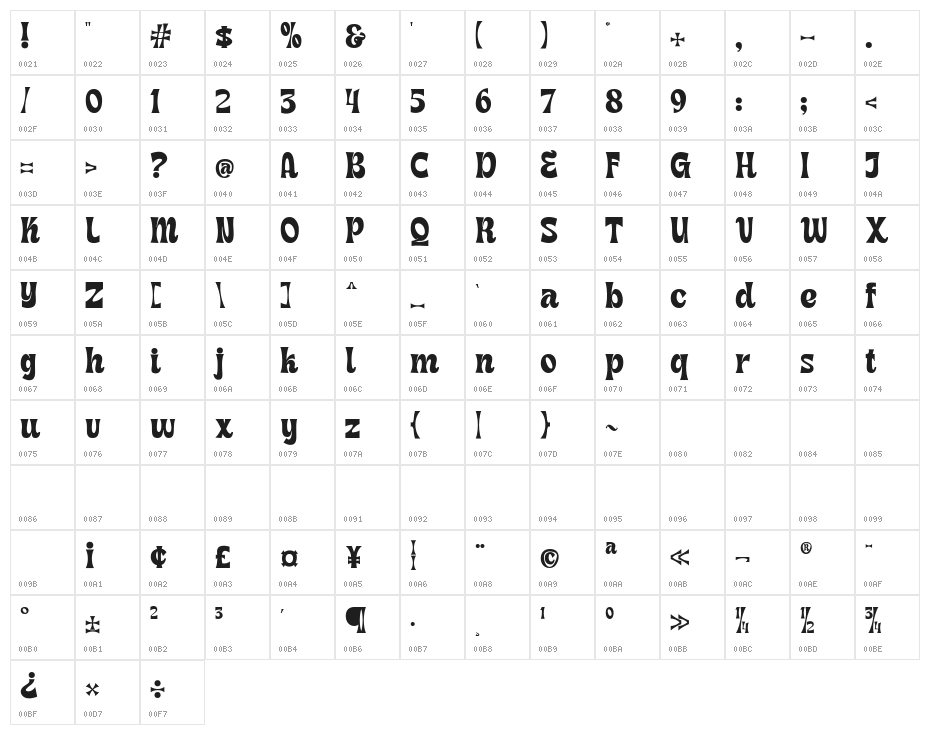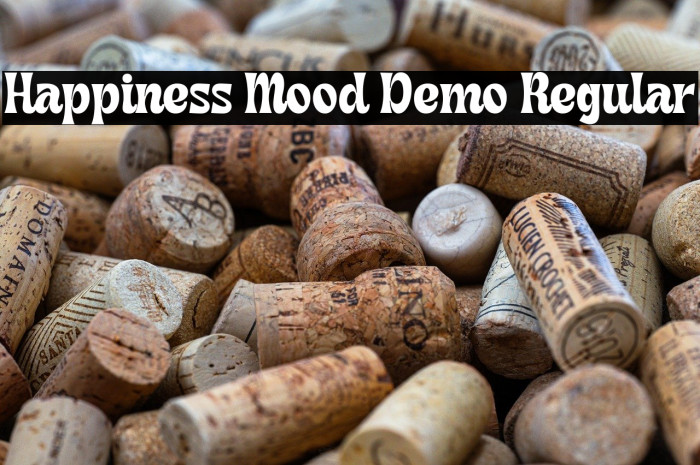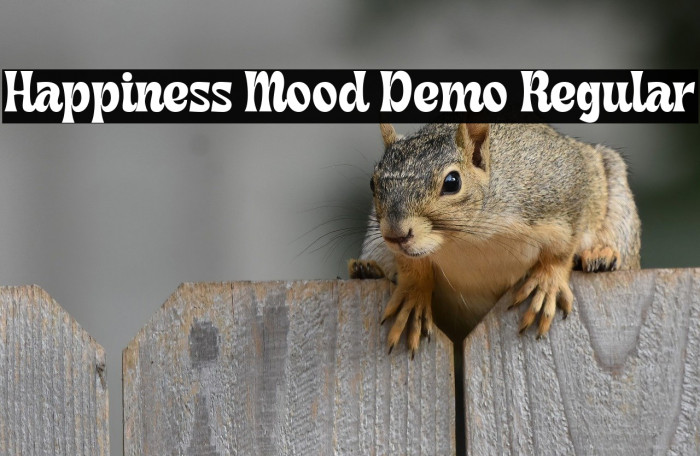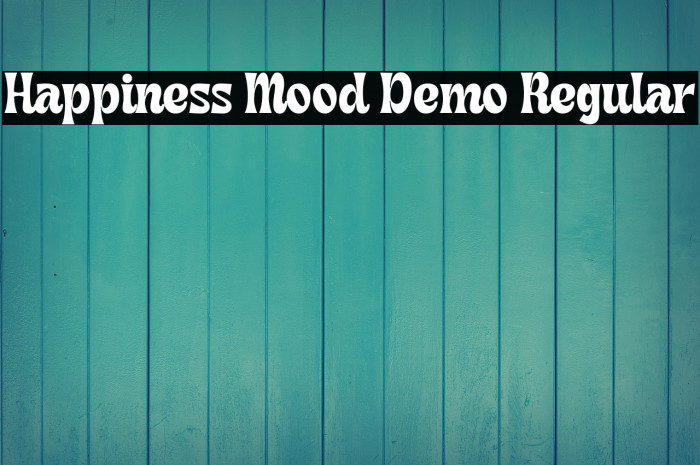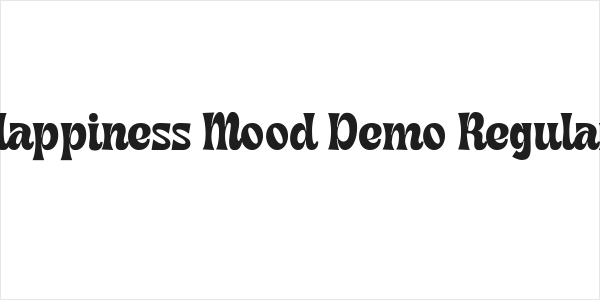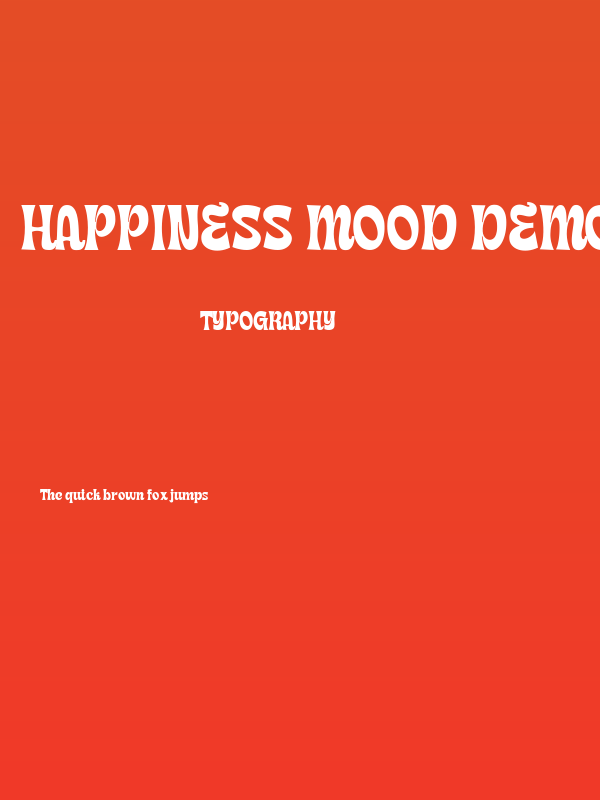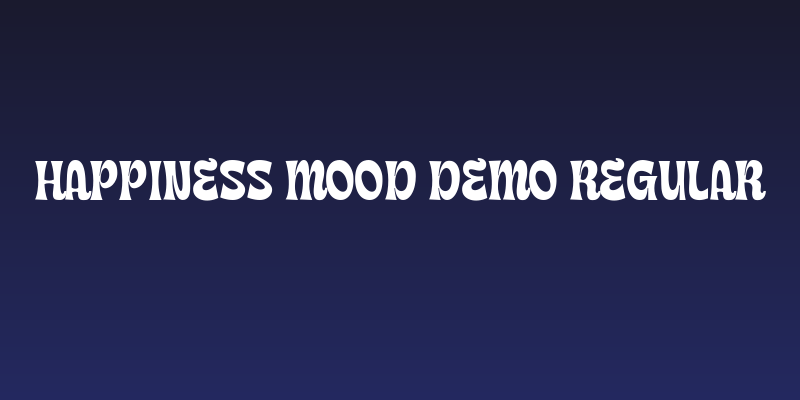
Happiness Mood Demo Regular Font
Happiness Mood Demo Regular Description
This font features a playful and whimsical design with bold, curvy strokes that give it a lively and energetic appearance. The characters have a unique, almost cartoonish flair, with exaggerated curves and varying stroke widths that create a dynamic and eye-catching look. The uppercase letters are particularly bold and prominent, while the lowercase letters maintain the same playful style with slightly more subtlety. Numbers and special characters are designed to match the overall aesthetic, ensuring consistency throughout. This font is perfect for projects that require a fun and engaging visual element.